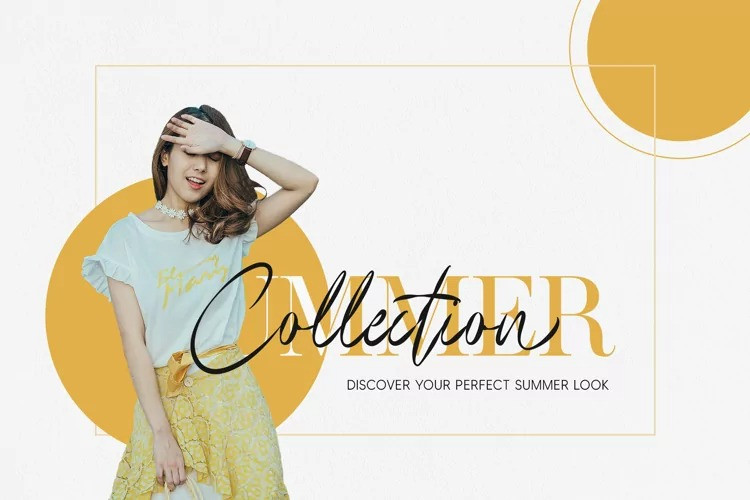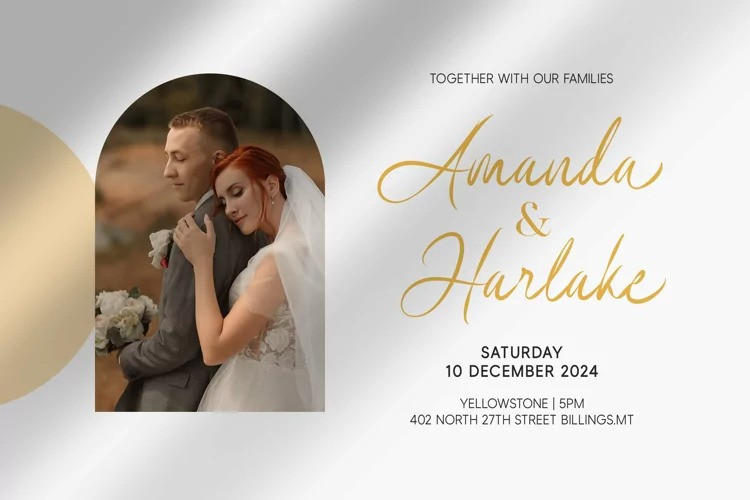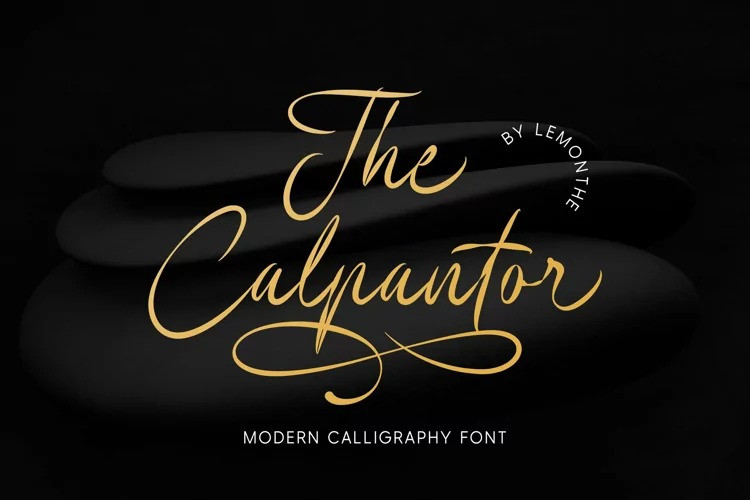
The Calpantor Font
The Calpantor Script Font is an elegant and flowing script font with a modern style. This script font will look gorgeous on a variety of design ideas such as logos and branding, invitation, stationery, wedding designs, product designs, labels, photography, and much more!